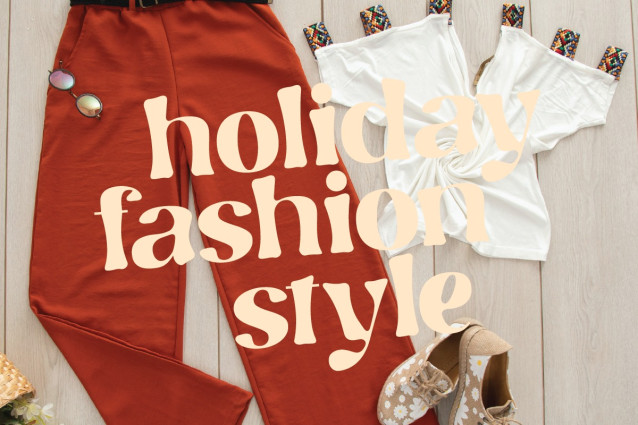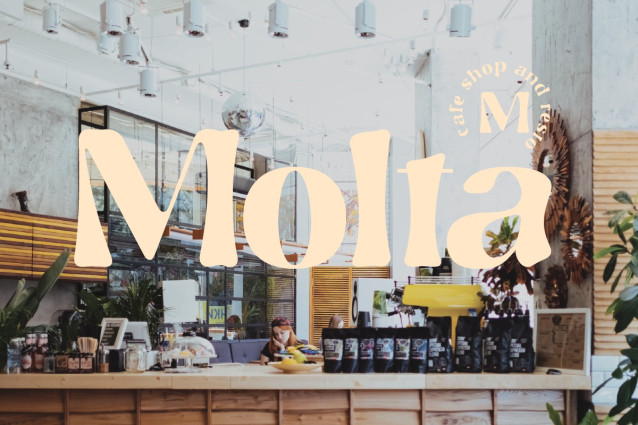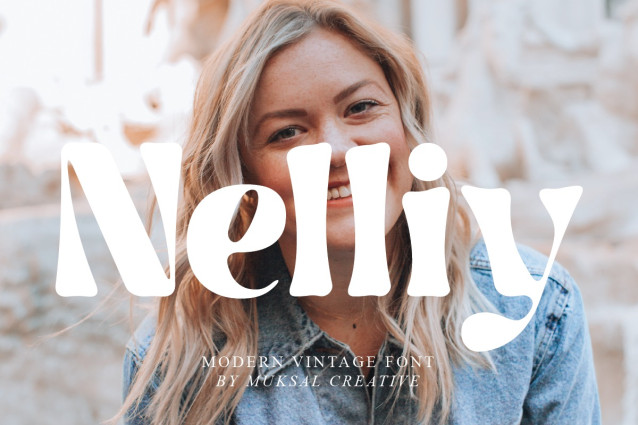
Nelliy Font
Nelliy Font special glyphs, ornament and multilingual support. It’s a very versatile font that works great in large and small sizes. Perfect for editorial projects, Logo design, Clothing Branding, product packaging, magazine headers, or simply as a stylish text overlay to any background image